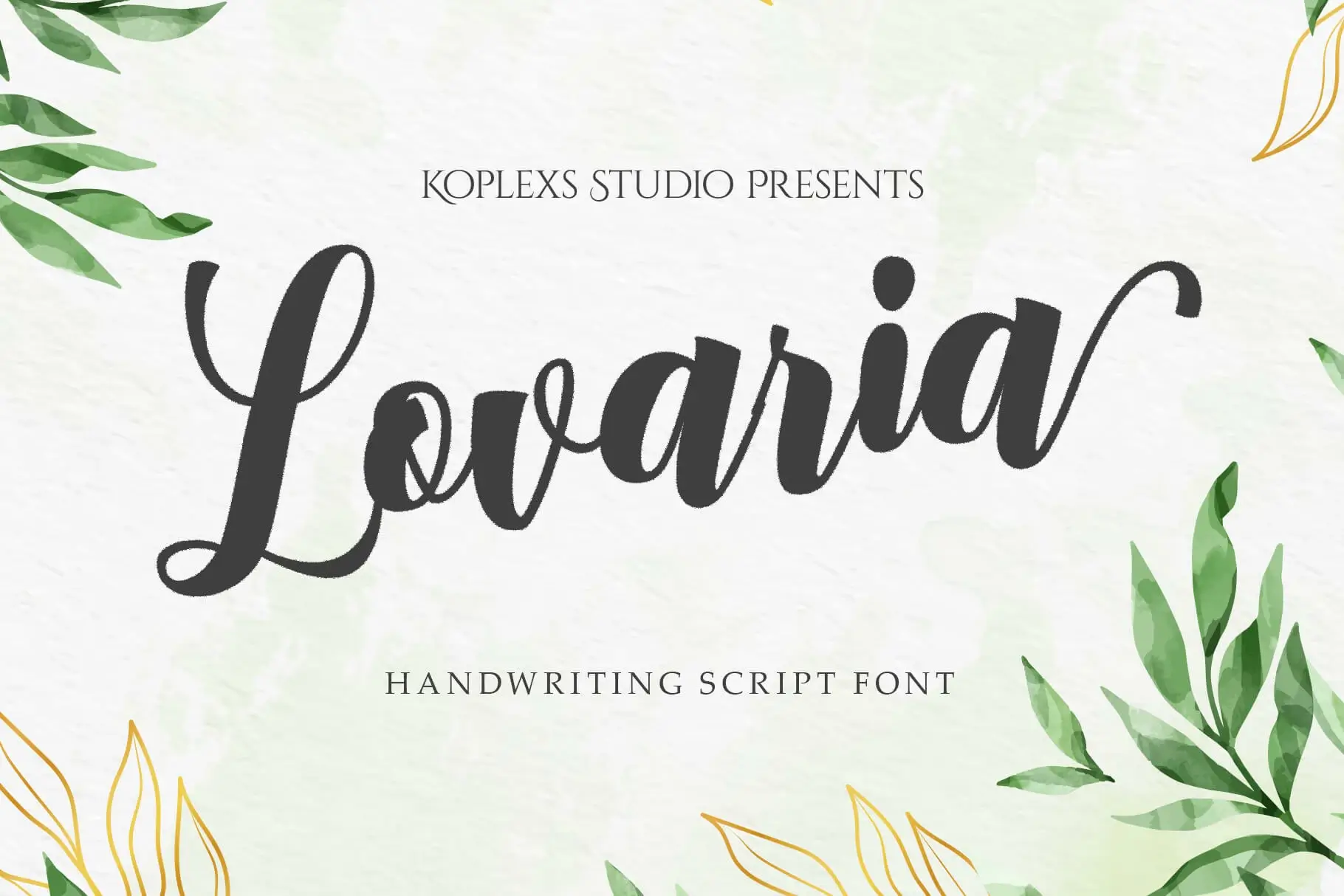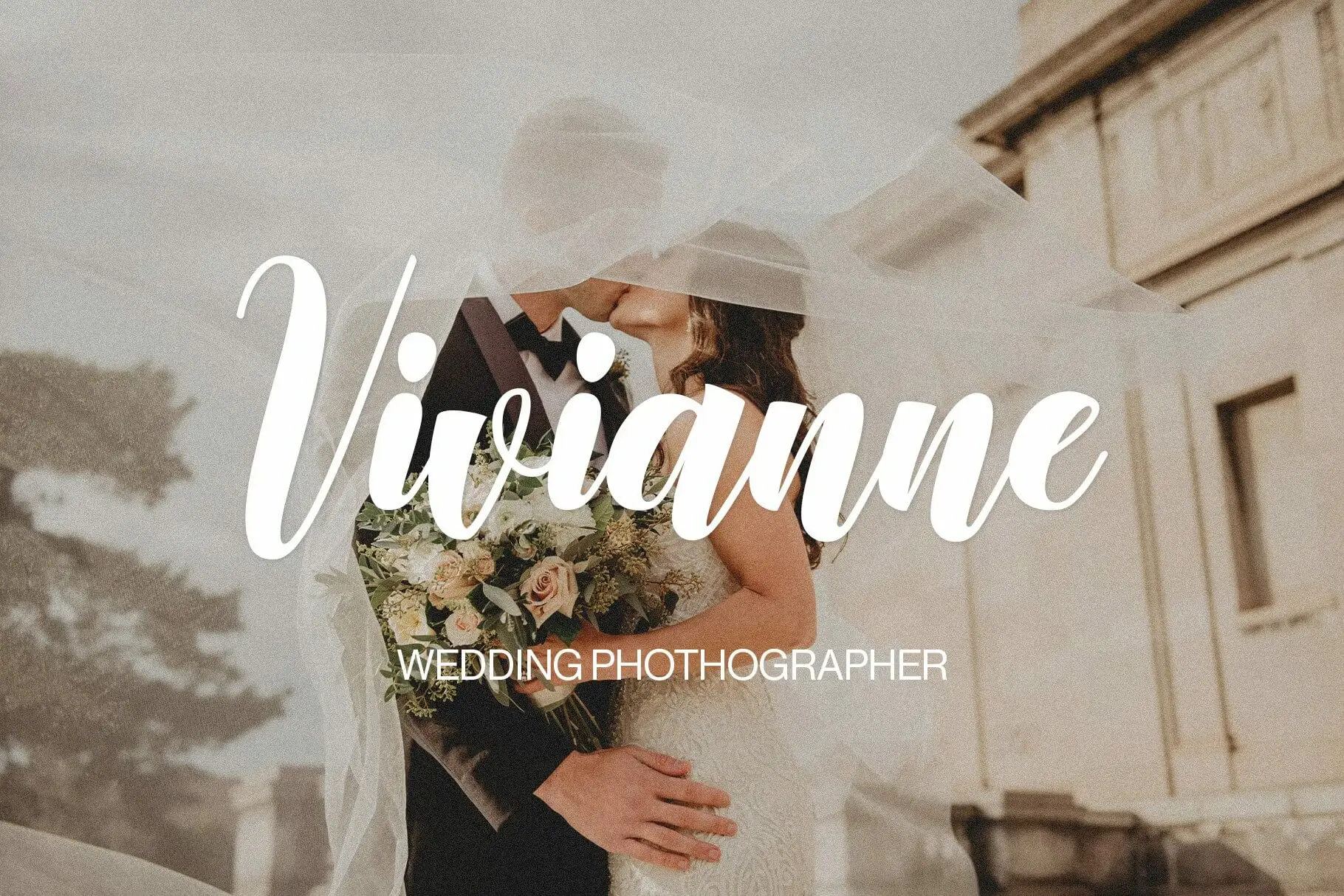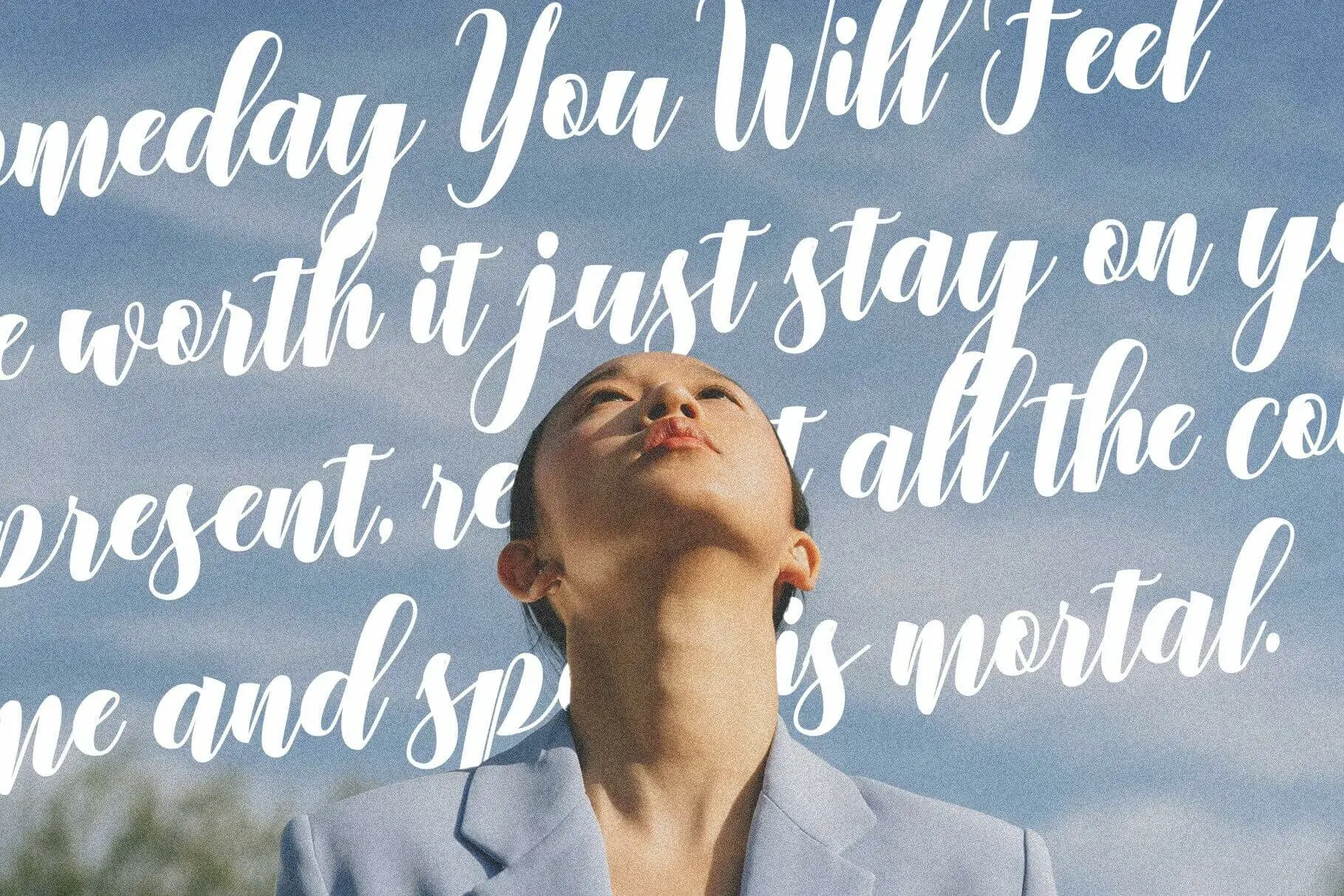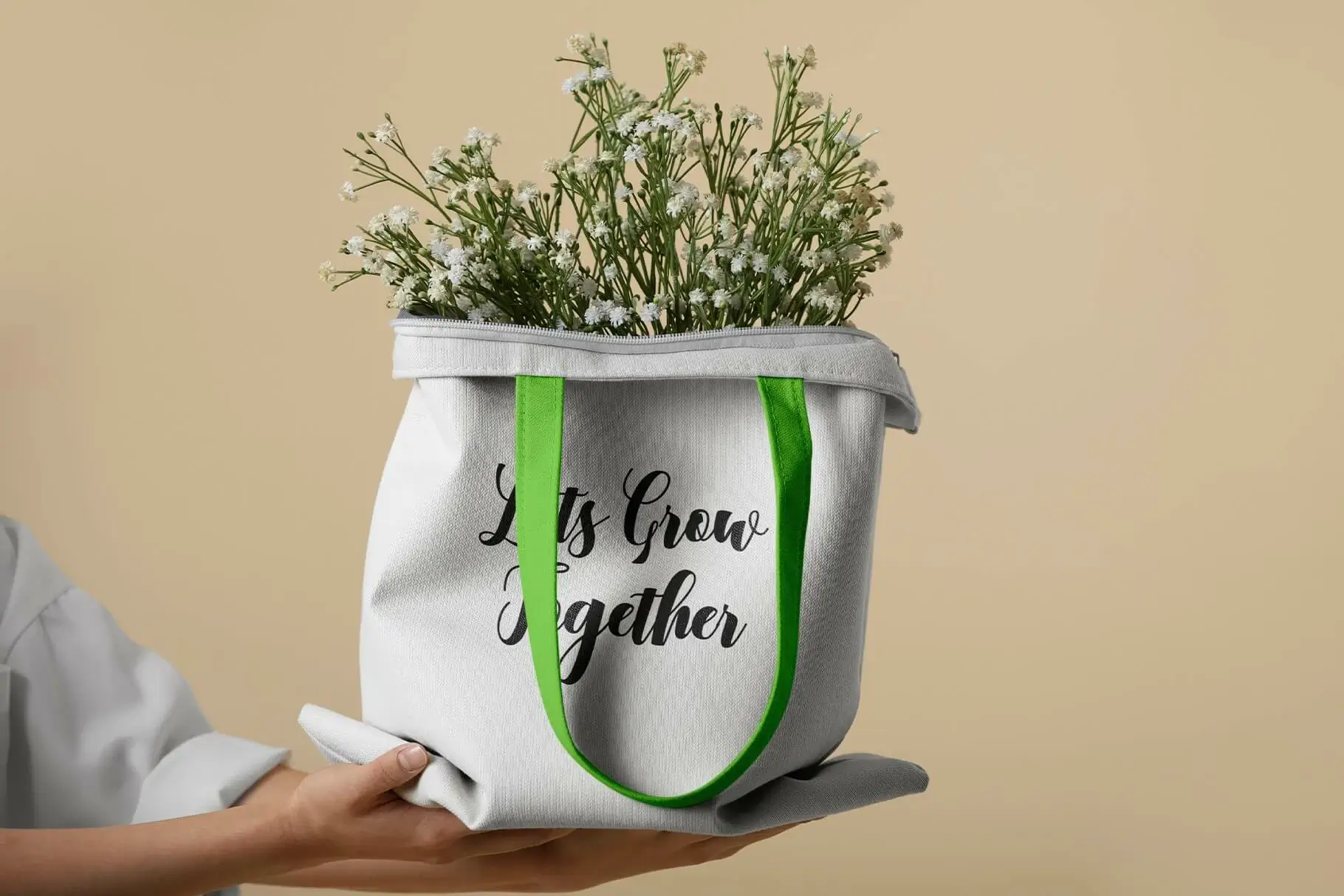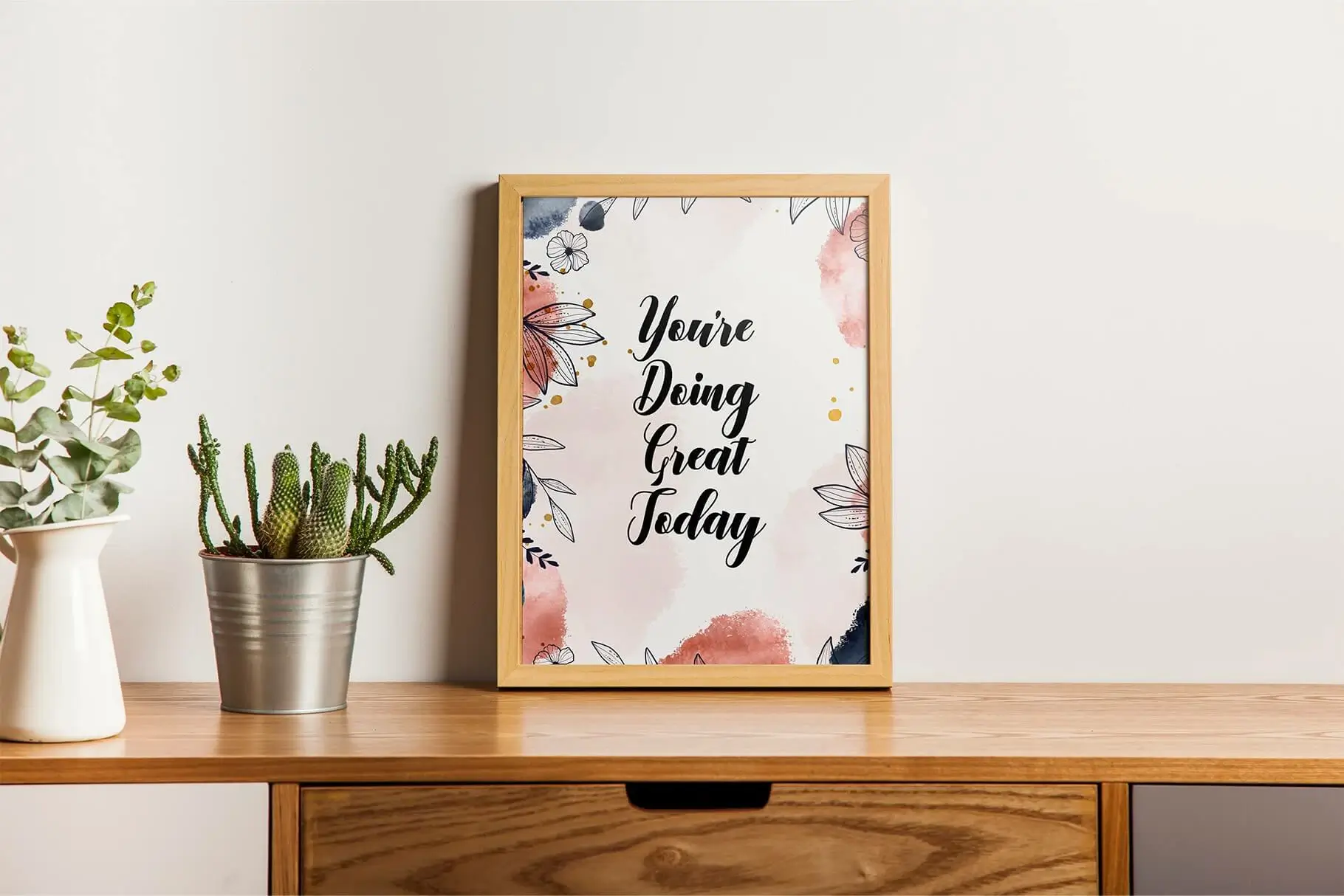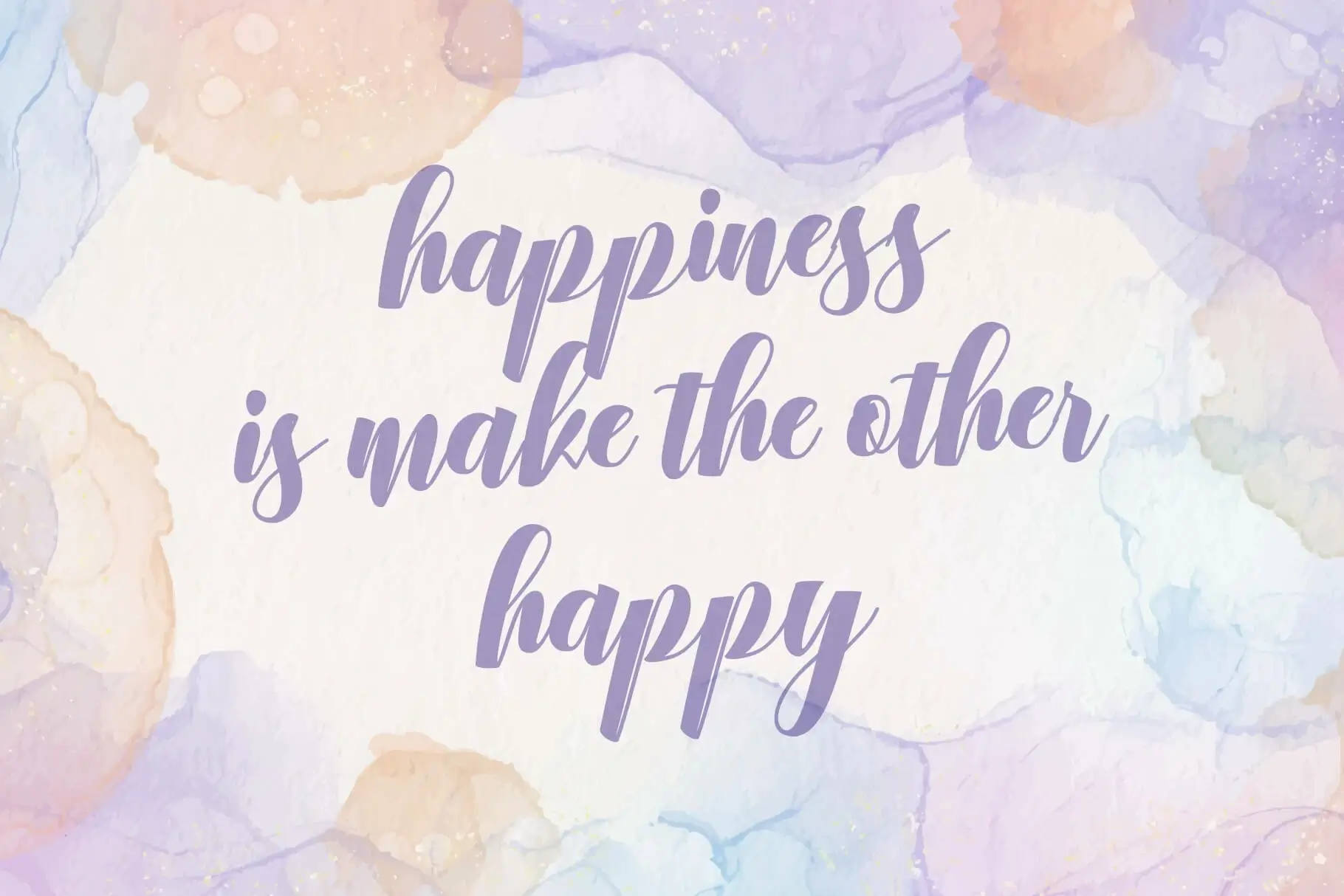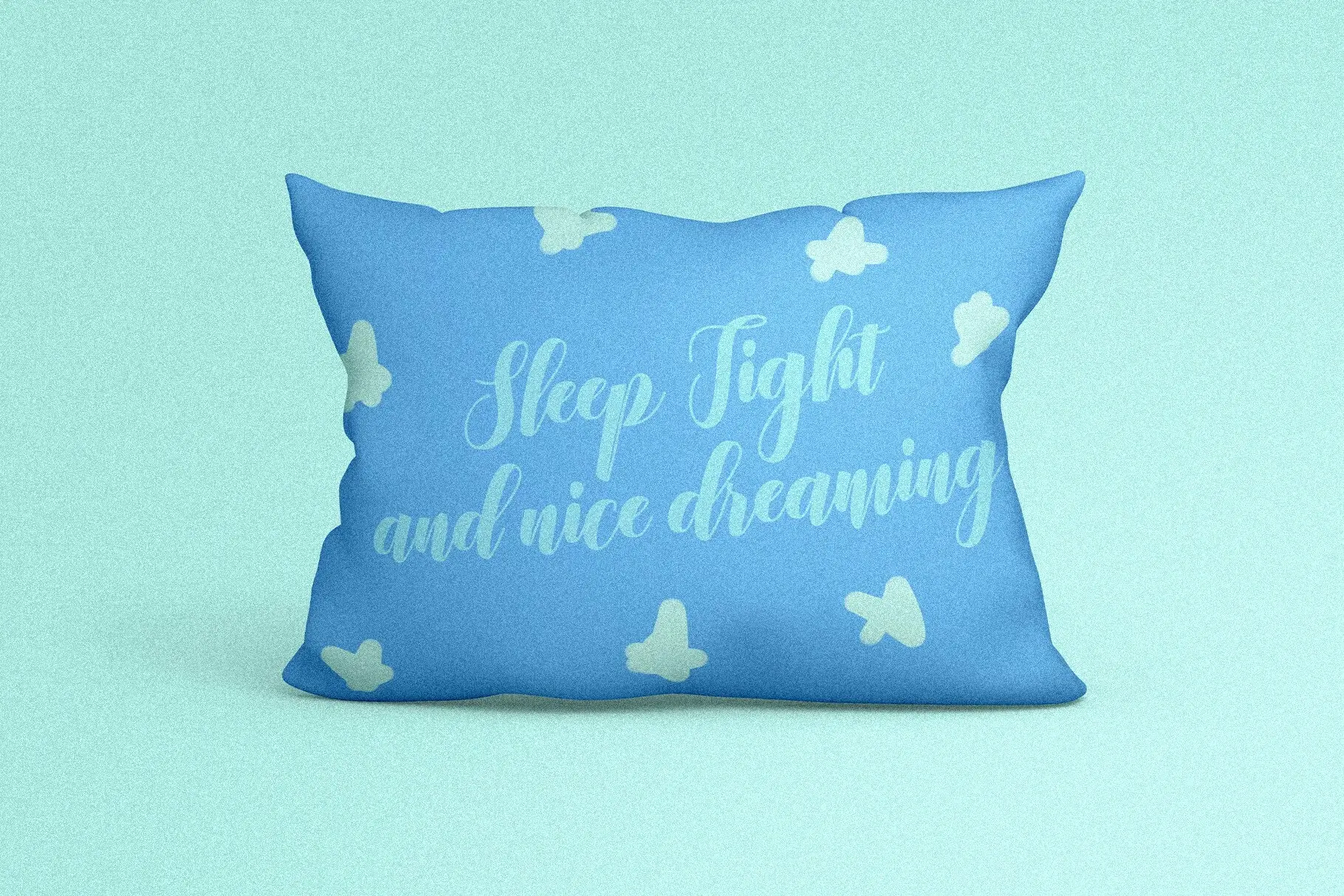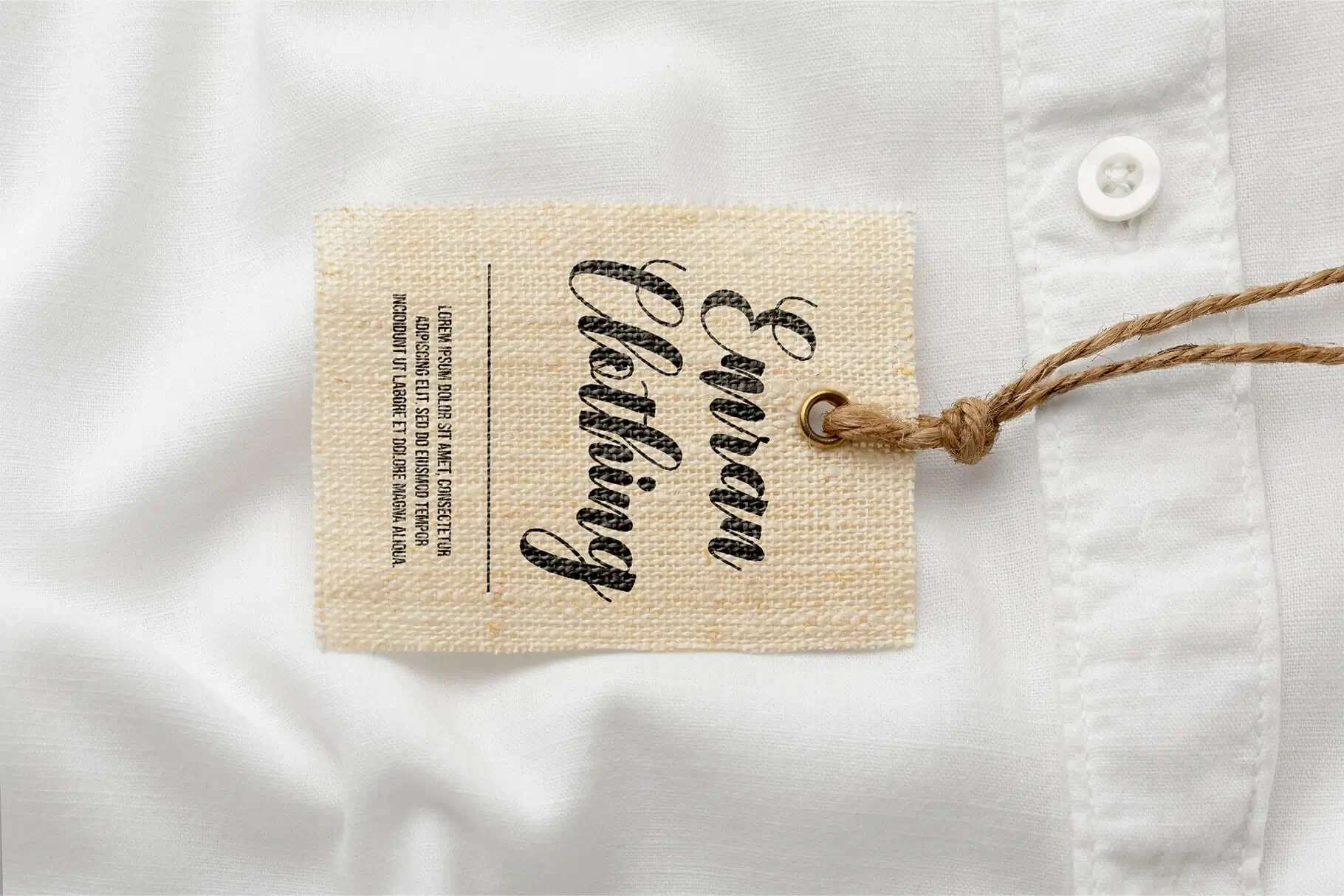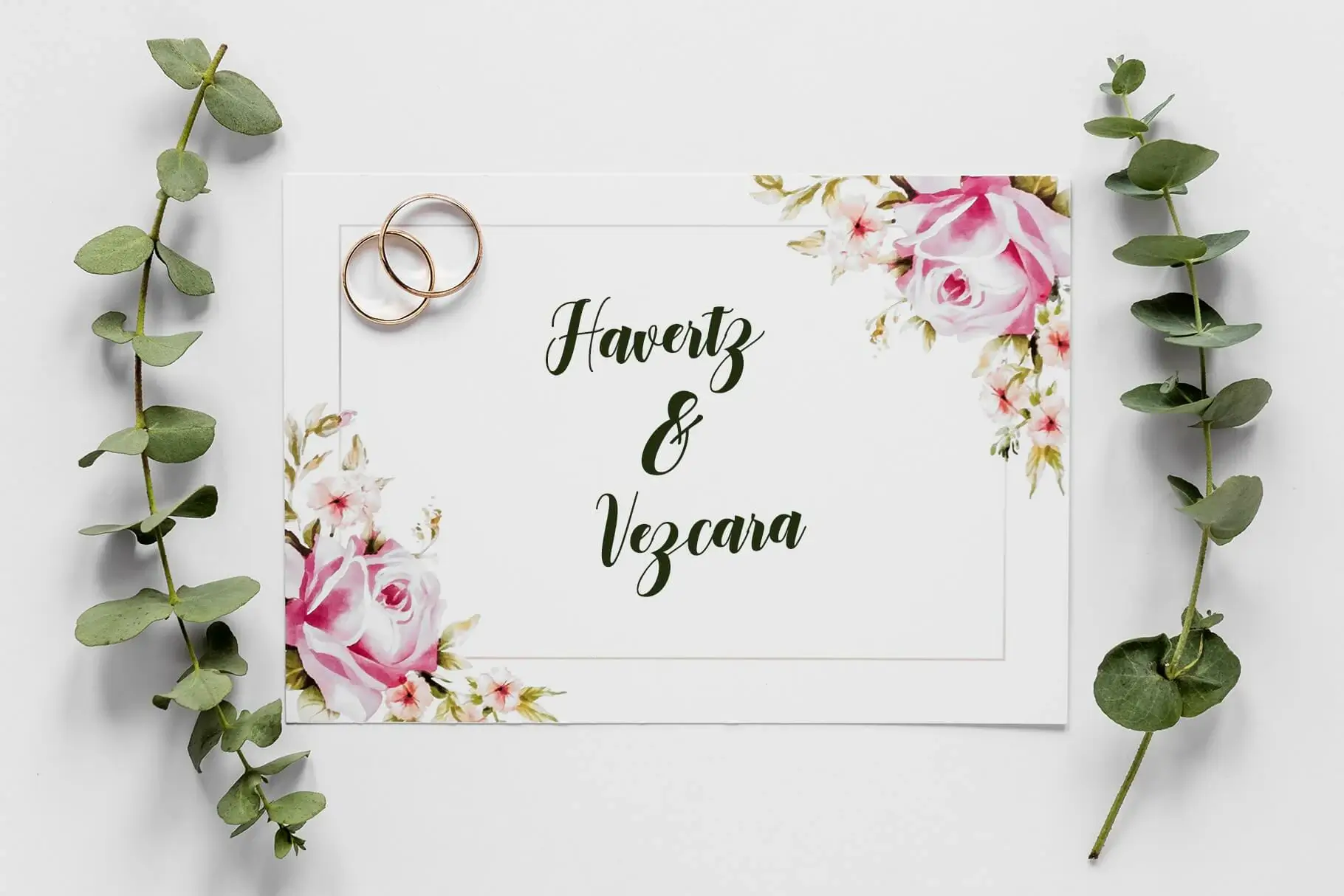
Lovaria Font
Lovaria Font is a beautiful and romantic handwriting script font, perfect for invitations, quotes, branding, and personal designs. With its soft cursif style and authentic touch, Lovaria adds warmth and elegance to any creative project.
Lovaria Font – A Touch of Handwritten Romance
Lovaria Font is a beautifully crafted handwriting font that exudes elegance, warmth, and a personal charm rarely found in digital typography. Designed to mimic the natural flow of real handwriting, Lovaria brings an authentic and intimate feel to any project it graces. Whether you’re designing for print or digital media, this script font adds a soft, human touch that resonates with emotion and sincerity.
🌸 Design & Style Lovaria Font
Lovaria is a graceful cursif font , featuring smooth, flowing strokes and gentle curves that resemble the delicate movement of ink on paper. The font was inspired by romantic love letters, vintage calligraphy, and the organic rhythm of everyday handwriting. It balances legibility with artistic flair, making it ideal for both long-form text and expressive headlines.
Each character has been meticulously designed with attention to detail, including subtle baseline shifts, ligatures, and alternate characters that enhance its handwritten authenticity. The font also includes uppercase and lowercase variations, numbers, punctuation, and extended language support, ensuring versatility across different design applications.
💖 Perfect For Emotional & Personal Designs
Thanks to its soft and expressive style, Lovaria Font is especially suited for projects that aim to evoke emotion, connection, or nostalgia. It’s a top choice for:
• Wedding invitations & stationery
• Love quotes & poetry layouts
• Greeting cards & personal journals
• Branding for lifestyle, fashion, or wellness businesses
• Social media quotes & Instagram stories
• Packaging design with a handcrafted feel
Whether you’re creating something sweet, sentimental, or simply stylish, Lovaria helps your words come alive with personality and heart.
✨ Lovaria Font Key Features
• Authentic handwriting font with realistic ink texture and stroke variation
• Elegant script font with fluid connectivity and a natural rhythm
• Stylish cursif font with a soft bounce and romantic undertones
• Includes standard and stylistic alternates
• Supports multiple languages (Latin-based)
• Punctuation and special characters included
🎨 Lovaria Font Pairing Suggestions
Lovaria pairs beautifully with clean sans-serif fonts for contrast, or with other script fonts for a more dramatic effect. Try combining it with minimalist backgrounds or watercolor textures to enhance its warm, organic appeal.
Lovaria Font isn’t just another typeface — it’s a love letter written in typography. With its emotional depth and timeless beauty, it invites designers and creators to craft messages that feel personal, genuine, and unforgettable.
Fall in love with every curve and stroke. Choose Lovaria Font when your words deserve to be felt, not just read.